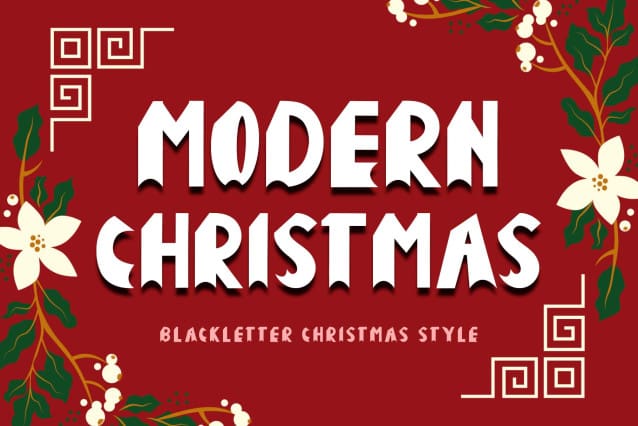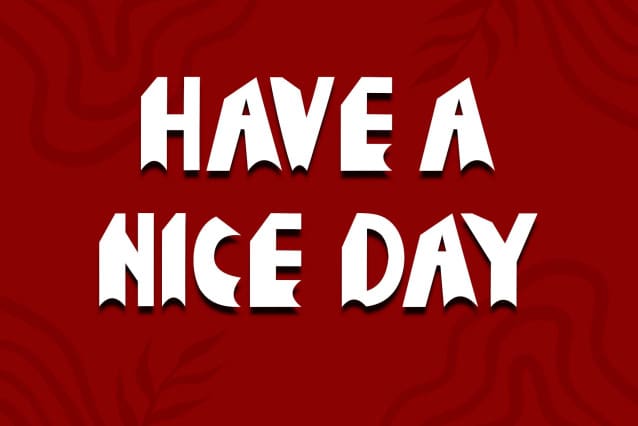
Modern Christmas Font
Modern Christmas Font is a unique and elegant black letter Christmas font. It comes with capital letters, lowercase letters, numbers, punctuation, and multi-language support. Perfect for Christmas, holidays, Halloween, invitations, comics, banners, posters, prints, logos, black friday, stickers and more.